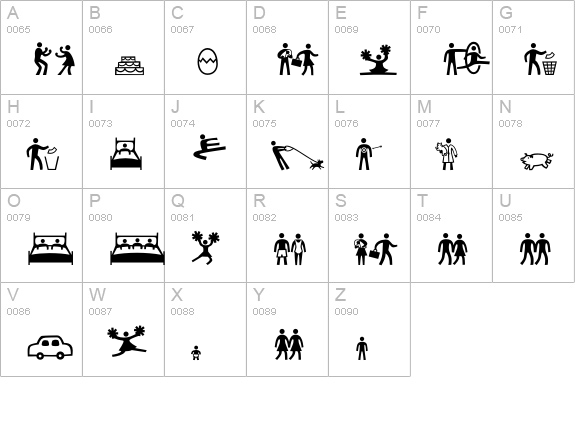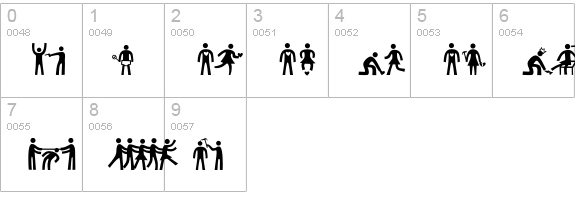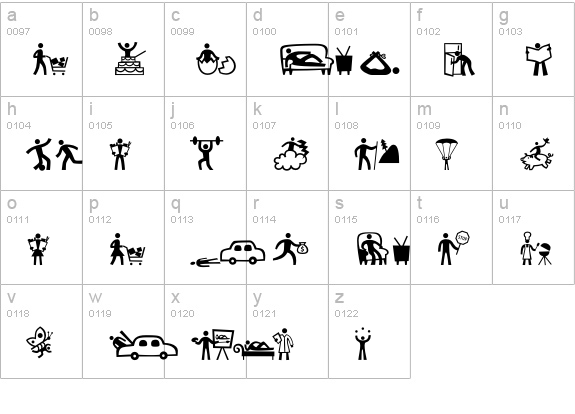
PedestriaMVB-PictTwo font is a stunning and versatile typeface that is sure to captivate any viewer. With its modern and sleek design, this font brings a touch of sophistication to any project. Featuring intricate and eye-catching details, PedestriaMVB-PictTwo font is perfect for adding a unique and artistic flair to your designs. Whether you're designing a logo, creating a poster, or crafting a website, this font will elevate your work to a whole new level. One of the standout features of PedestriaMVB-PictTwo font is its versatility. It can be used for a wide range of purposes, from elegant and refined projects to more playful and whimsical designs. Its wide range of glyphs allows for endless creative possibilities, making it a go-to choice for designers and artists alike. But what sets PedestriaMVB-PictTwo font apart is the fact that it is freely available for download at FontsMarket.com. That's right, this incredible font can be yours without any cost. This means that you can enjoy the beauty and versatility of PedestriaMVB-PictTwo font without breaking the bank. So, whether you're a professional designer or a casual enthusiast, PedestriaMVB-PictTwo font is a must-have in your font collection. Don't miss out on this amazing opportunity to enhance your designs with a font that is both visually stunning and freely available. Download PedestriaMVB-PictTwo font today from FontsMarket.com and unlock a world of creative possibilities.